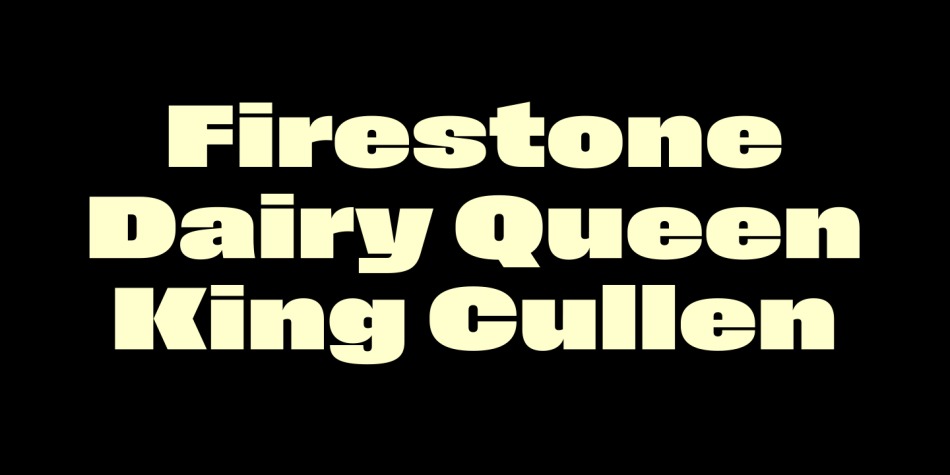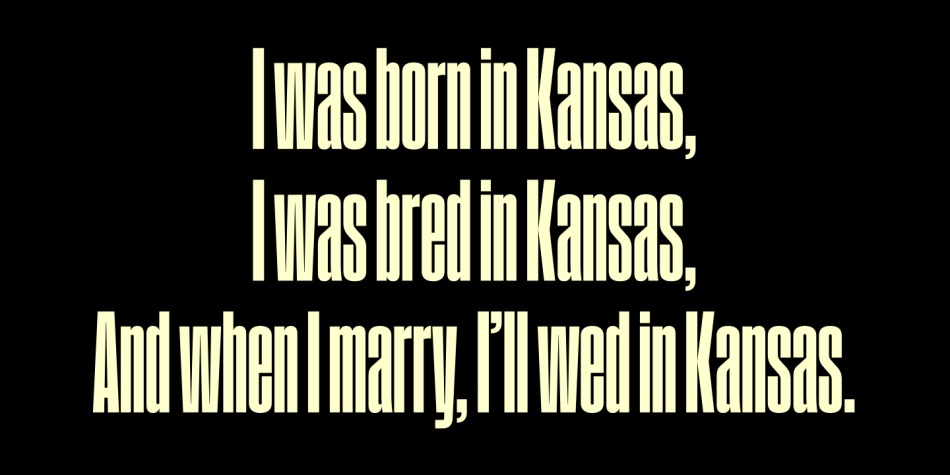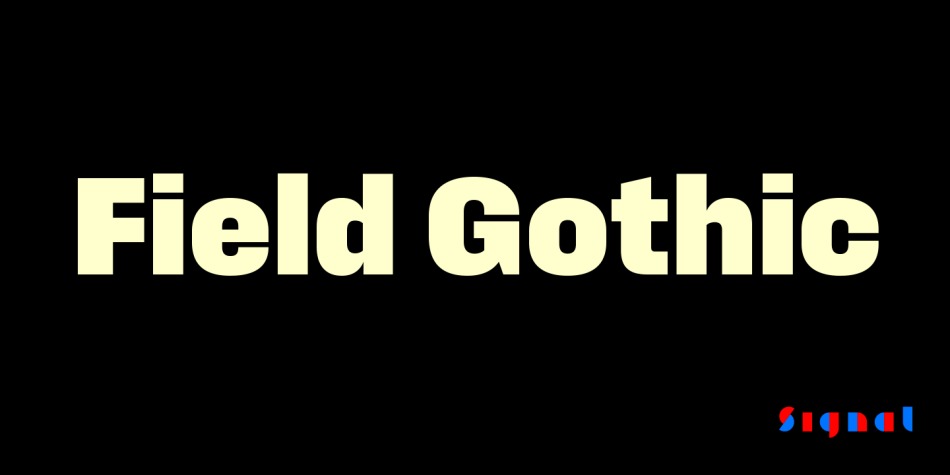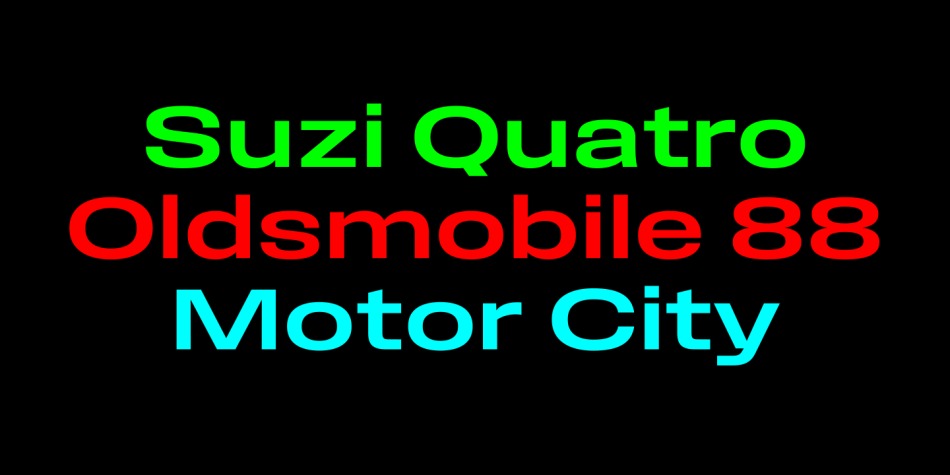
Field Gothic Font Family
Field Gothic Sans Serif Font is a carefully crafted, handmade sans serif font manufactured by Signal. Overall, the look is crisp and on the cool side, with slightly superelliptical curves. The x-height is high; punctuation and diacritics and substantial. The lightest weights are almost monoline; above that, arches and bowls have sharply contrasting junctures and a snug fit for maximum impact in headline sizes.